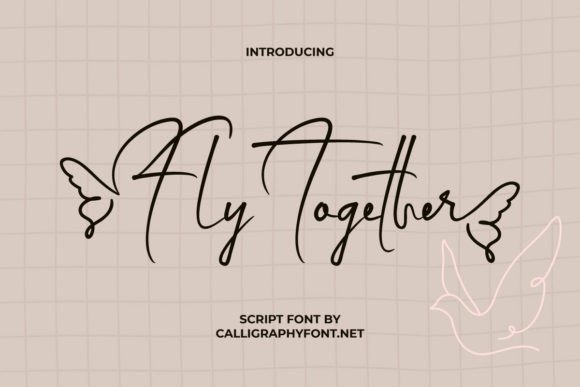
Unlock the Magic of Handwritten Typography
Have you ever stared at a blank page, waiting for the perfect font to spark your creativity? It’s that moment when you finally find the perfect combination of style and legibility, and your design comes to life. For designers, finding that elusive font can be a game-changer. That’s where Fly Together Font comes in – a stunning decorative handwriting font designed to elevate your creative projects.
Developed by the talented team at CalligraphyFonts.net, Fly Together Font boasts sleek and thin shapes that exude authenticity and modernity. Whether you’re crafting brand logos, brochures, or website headers, this font is sure to make a lasting impression. Its versatility makes it a valuable addition to any designer’s toolkit, perfect for a wide range of industries and applications.
Fly Together Font Key Features
- Unique Characteristics: The Fly Together Font features a unique blend of modern and vintage elements, with intricate details and textures that add a touch of elegance to any design.
Fly Together Font Review
I recently had the chance to work with the Fly Together Font, and I have to say it’s a mixed bag. On the one hand, I love the ✨ airy and modern feel it gives to any design. The font is perfect for creating a clean and minimalist aesthetic, which is exactly what I was going for in my latest project.
The font’s ✨ elegant lines and curves make it a great choice for headings and titles. It’s also ✨ highly legible, even at smaller font sizes, which is a must-have for me when working with large blocks of text.
However, I did encounter a few limitations with the Fly Together Font.
- ⚠️ Limited character set: I found that the font only includes a limited set of characters, which can be a problem if you need to work with languages that use non-Latin scripts.
- ⚠️ Not ideal for body text: While the font looks great for headings and titles, I found that it can be a bit too airy for body text. It’s not the most comfortable font to read for extended periods of time.
Overall, I would say that the Fly Together Font is a solid choice for designers who want to create a modern and minimalist aesthetic. However, it’s not without its limitations, and you should be aware of those before making a decision.
To get the most out of the “Fly Together Font”, use it for headings and titles to add a touch of whimsy and personality to your design.
Pair the font with bold, bright colors to create a visually appealing contrast.
Use the font in conjunction with illustrations or graphics to create a cohesive and engaging design.
The “Fly Together Font” is perfect for:
Children’s book covers and illustrations
Party invitations and decorations
Wedding stationery and invitations
Alternatives to Fly Together Font
The Fly Together Font is a popular sans-serif font known for its modern and friendly feel. However, designers may need alternatives depending on their project requirements.
Lato is a clean and elegant sans-serif font designed by Łukasz Dziedzic. It is ideal for use in digital products, such as websites and mobile apps, due to its clear and legible design. Lato is a great alternative to Fly Together Font when you need a font that is both modern and sophisticated.
The Fly Together Font is designed to be highly legible at a range of font sizes. We recommend using a font size between 12pt and 24pt for body text, and a line height of at least 1.2 to 1.5 times the font size. This will ensure optimal readability and visual balance in your design.